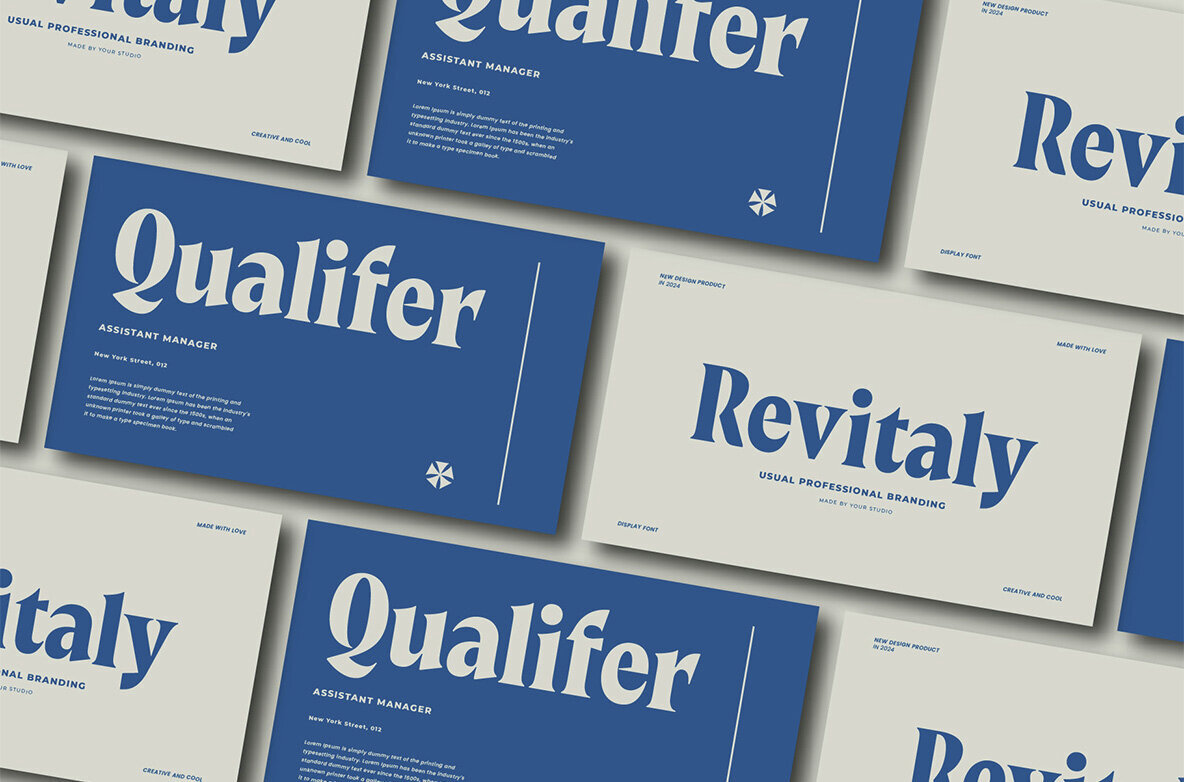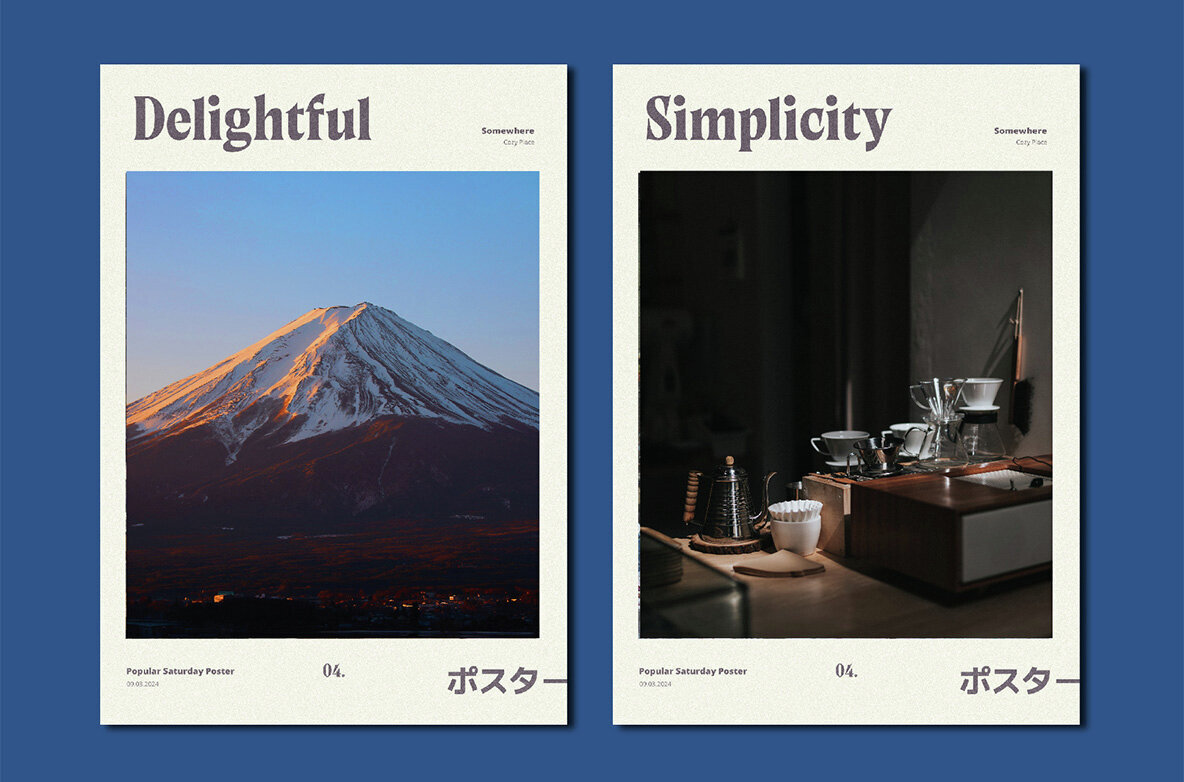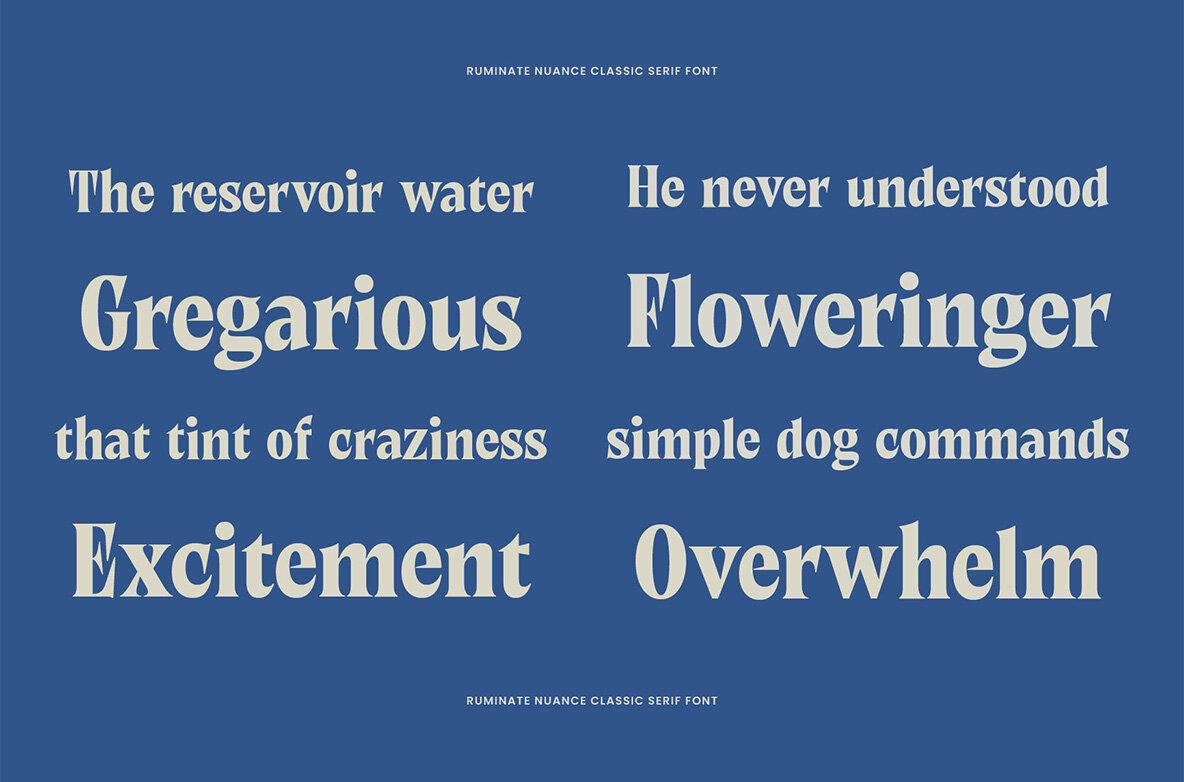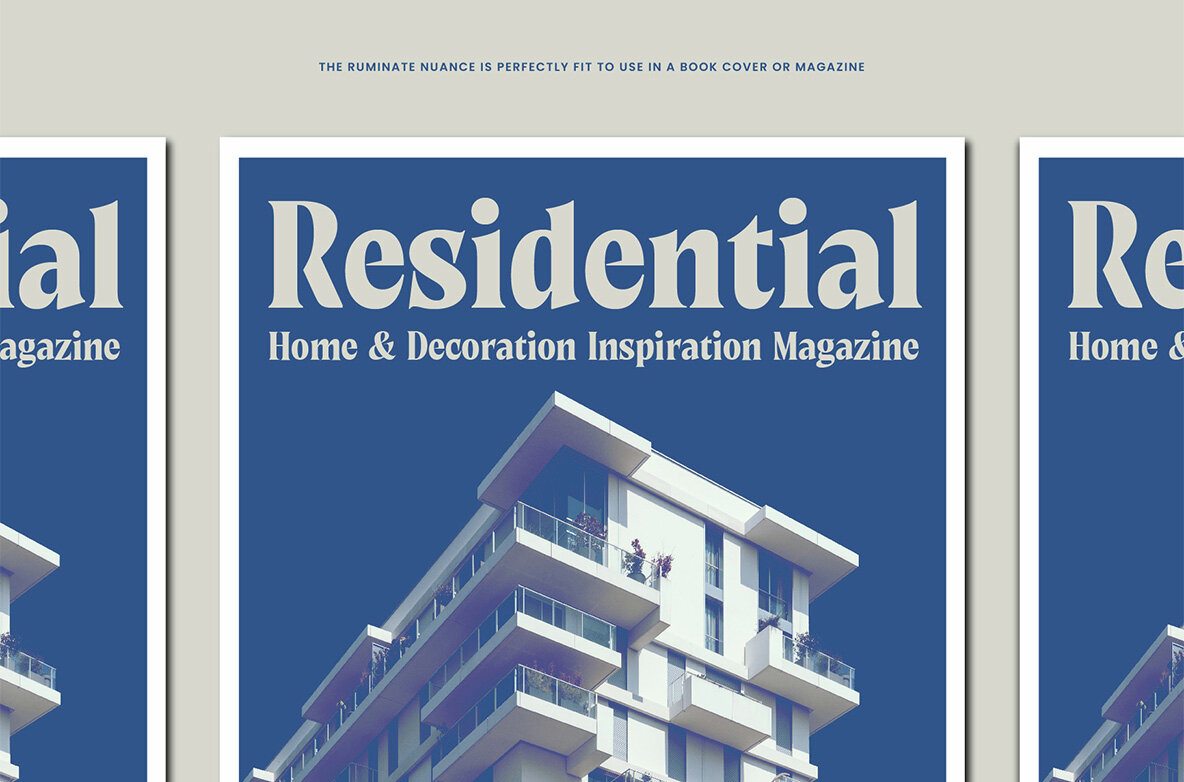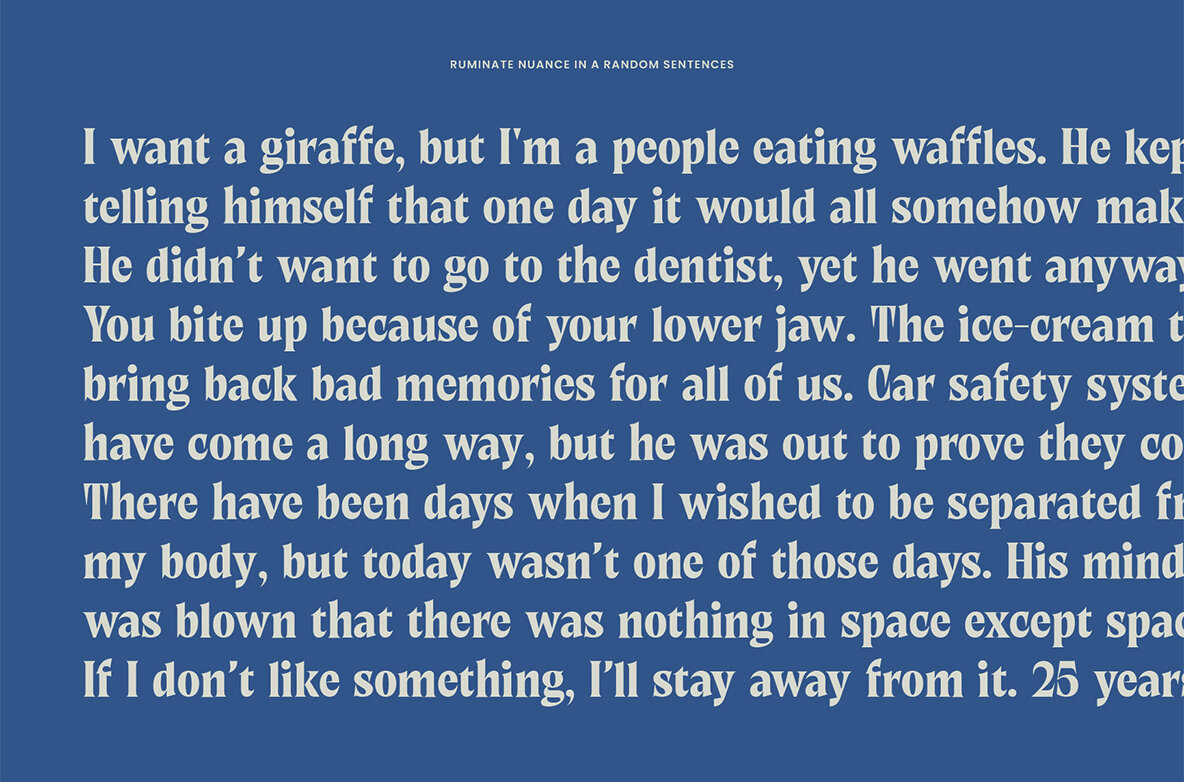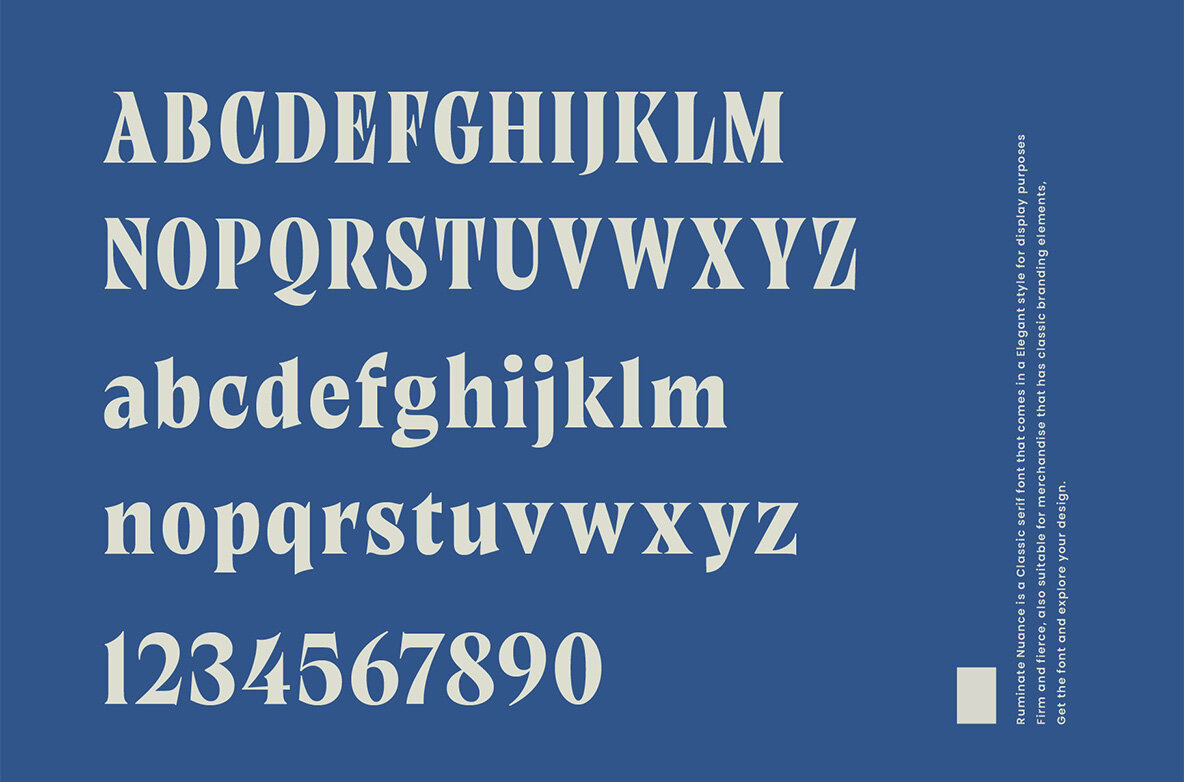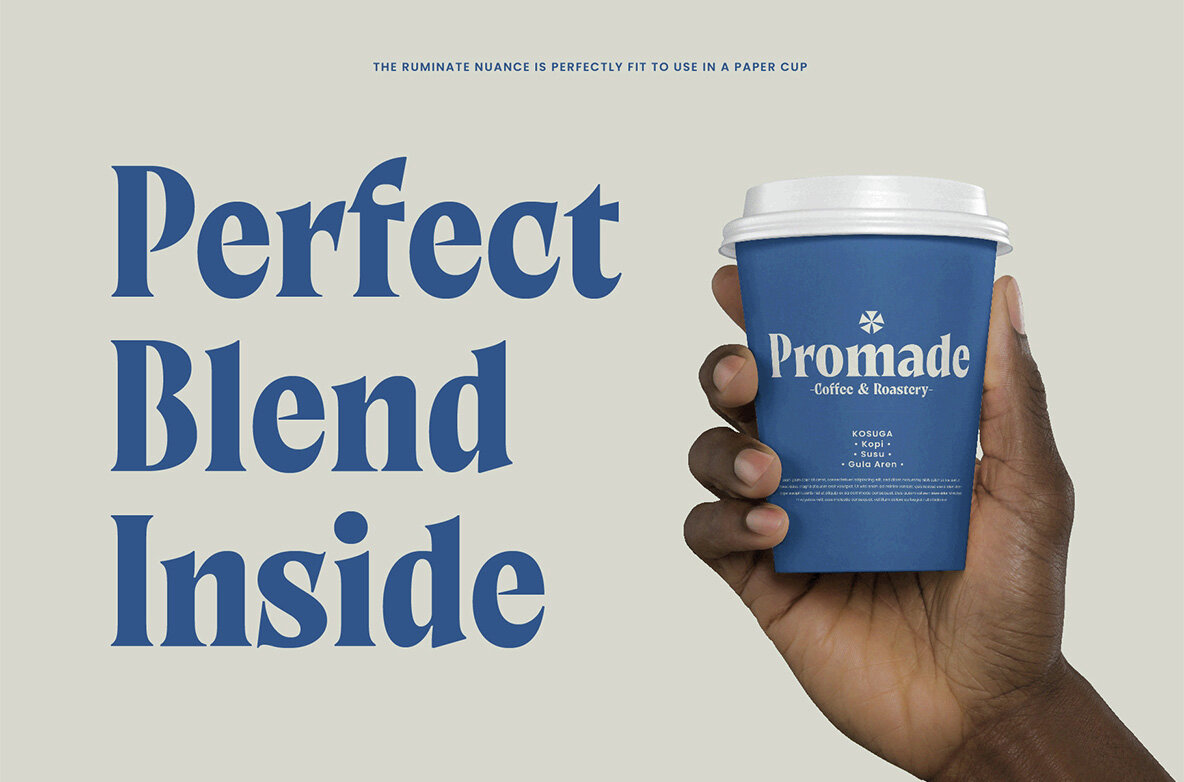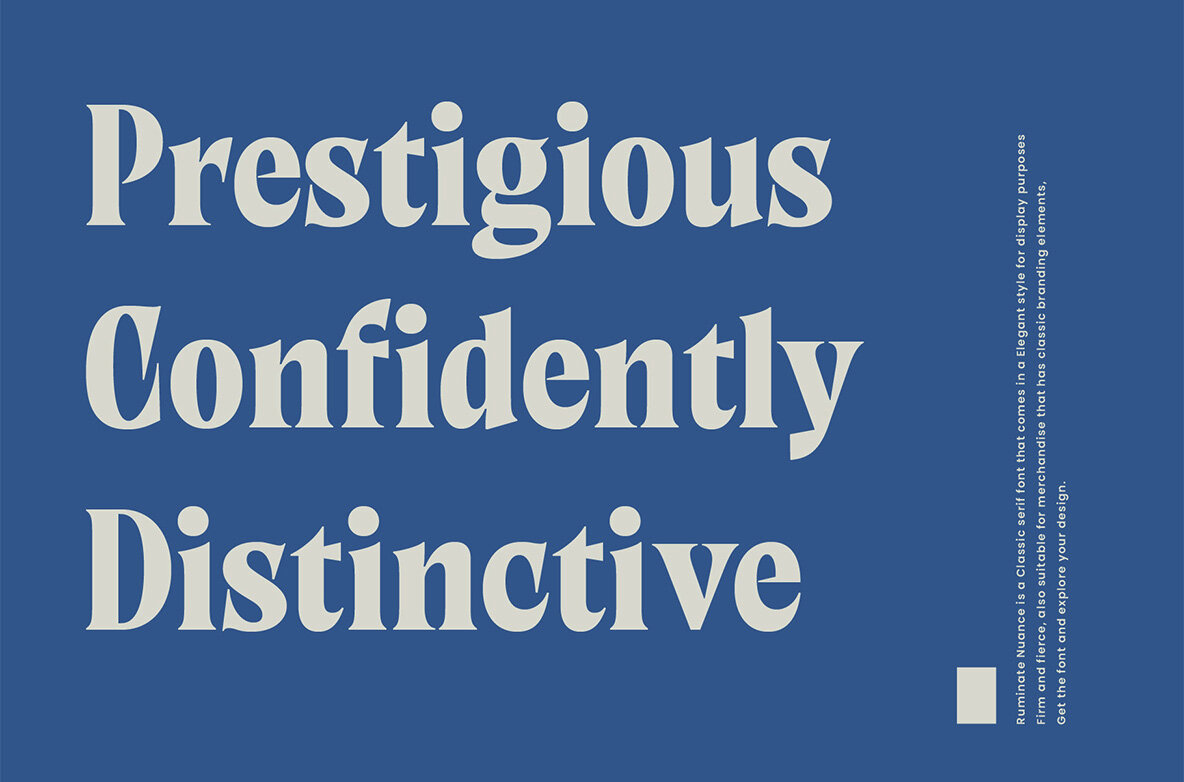
Ruminate Nuance Font
Ruminate Nuance Regular
Step into a world of nostalgic charm and prestigious elegance with The Ruminate Nuance, a bold serif font that pays attention to the golden age of typography. Inspired by vintage signage and classic print advertisements, The Ruminate Nuance captures the essence of yesteryear with its bold strokes, refined serifs, and distinctive character. FONT FEATURES